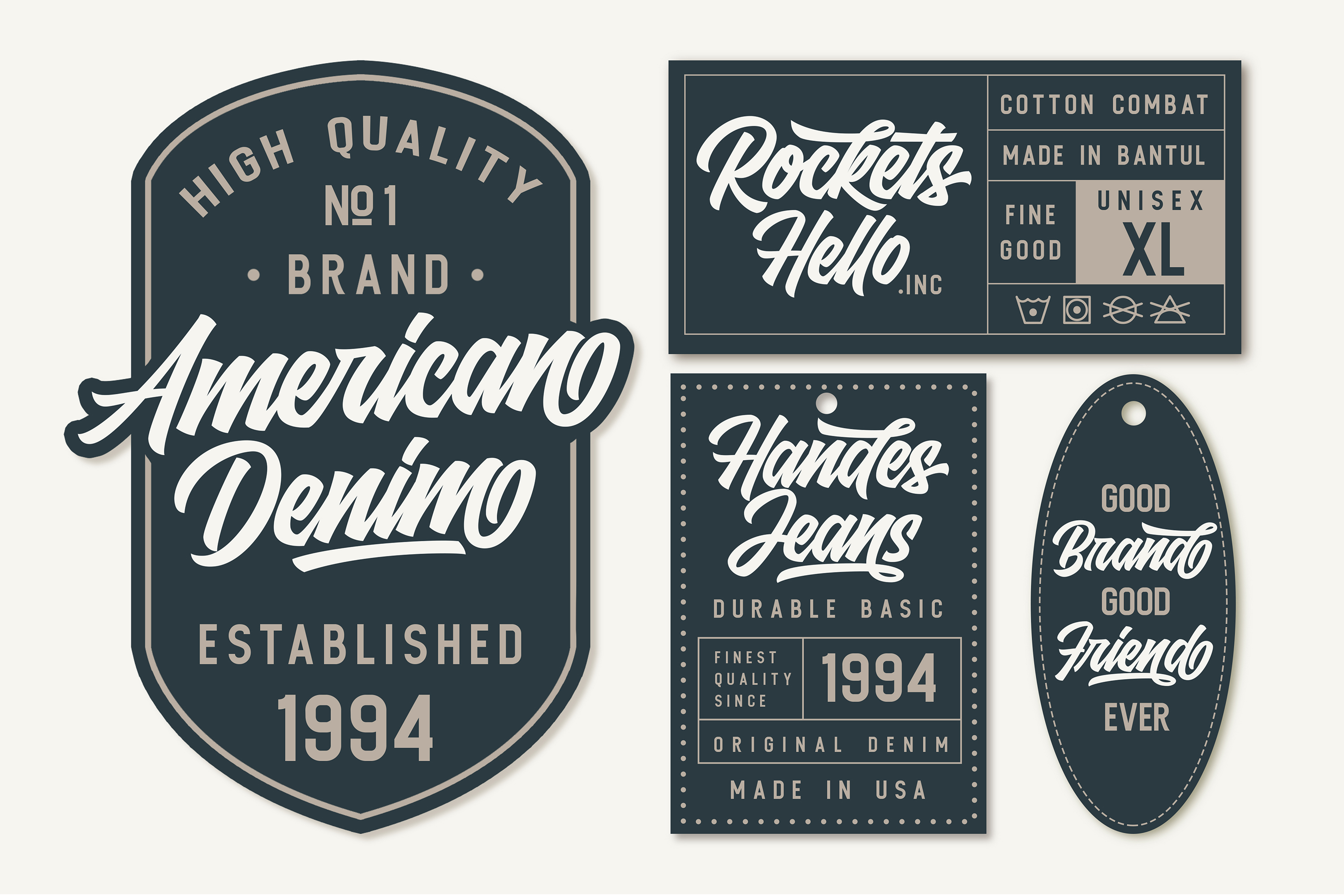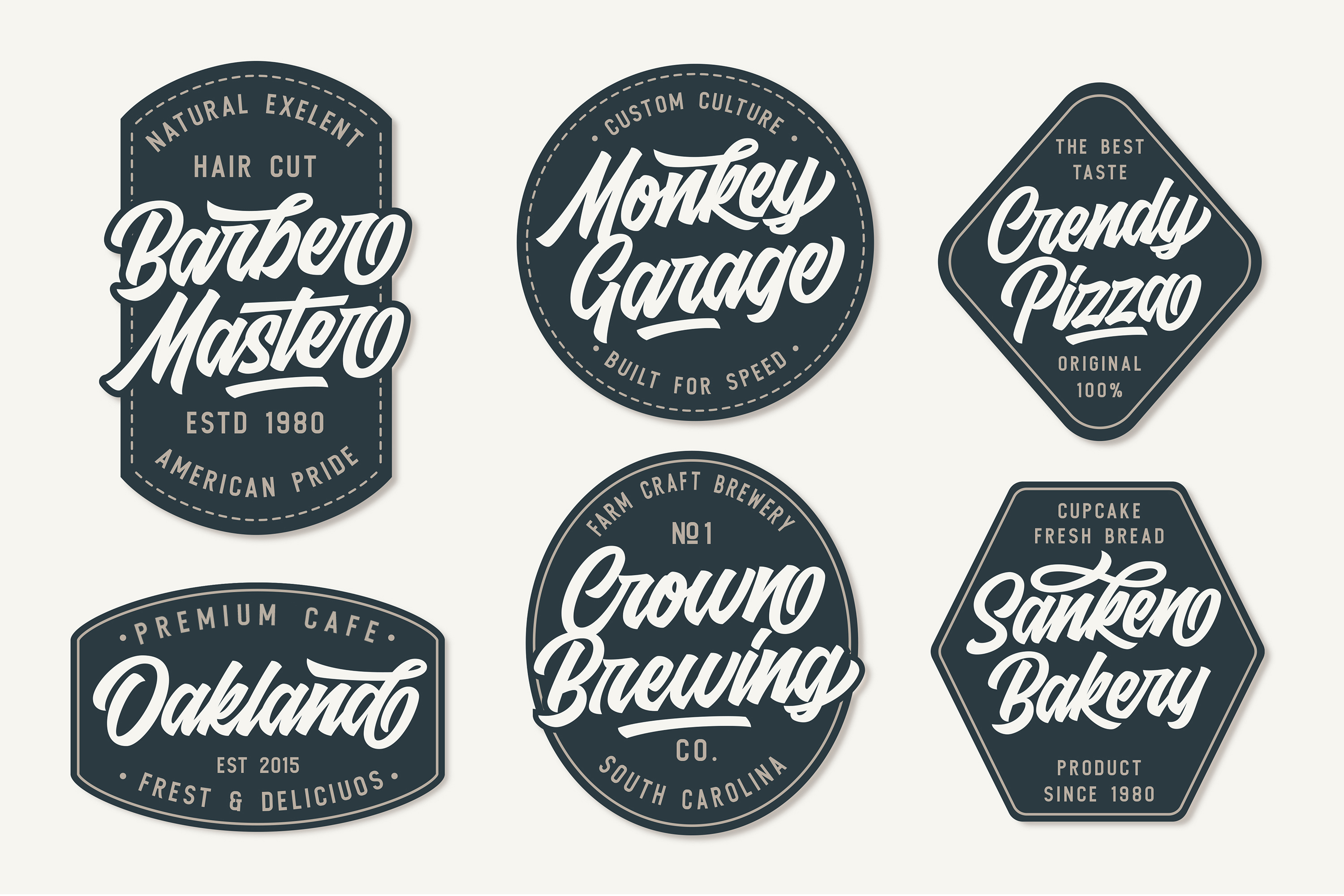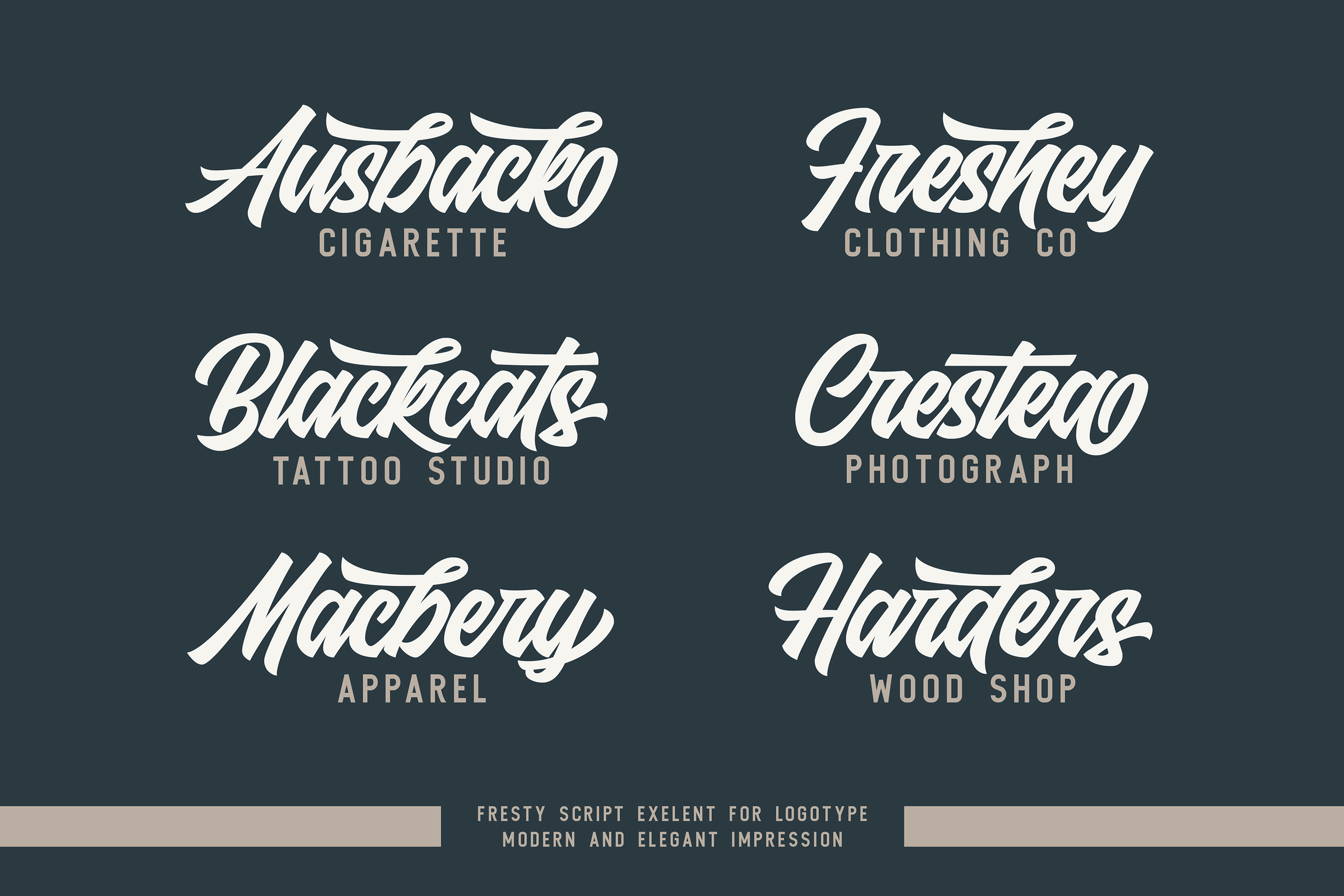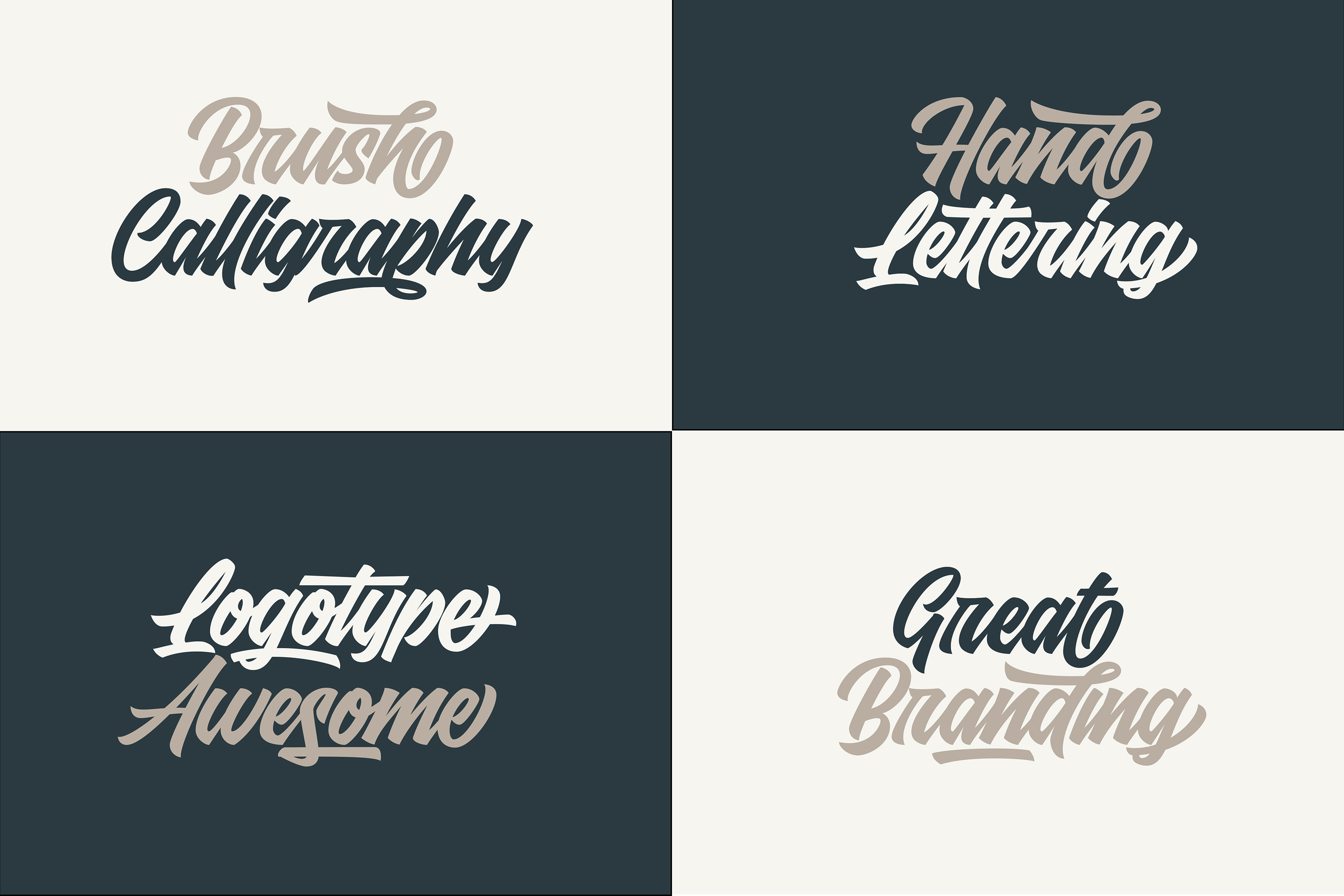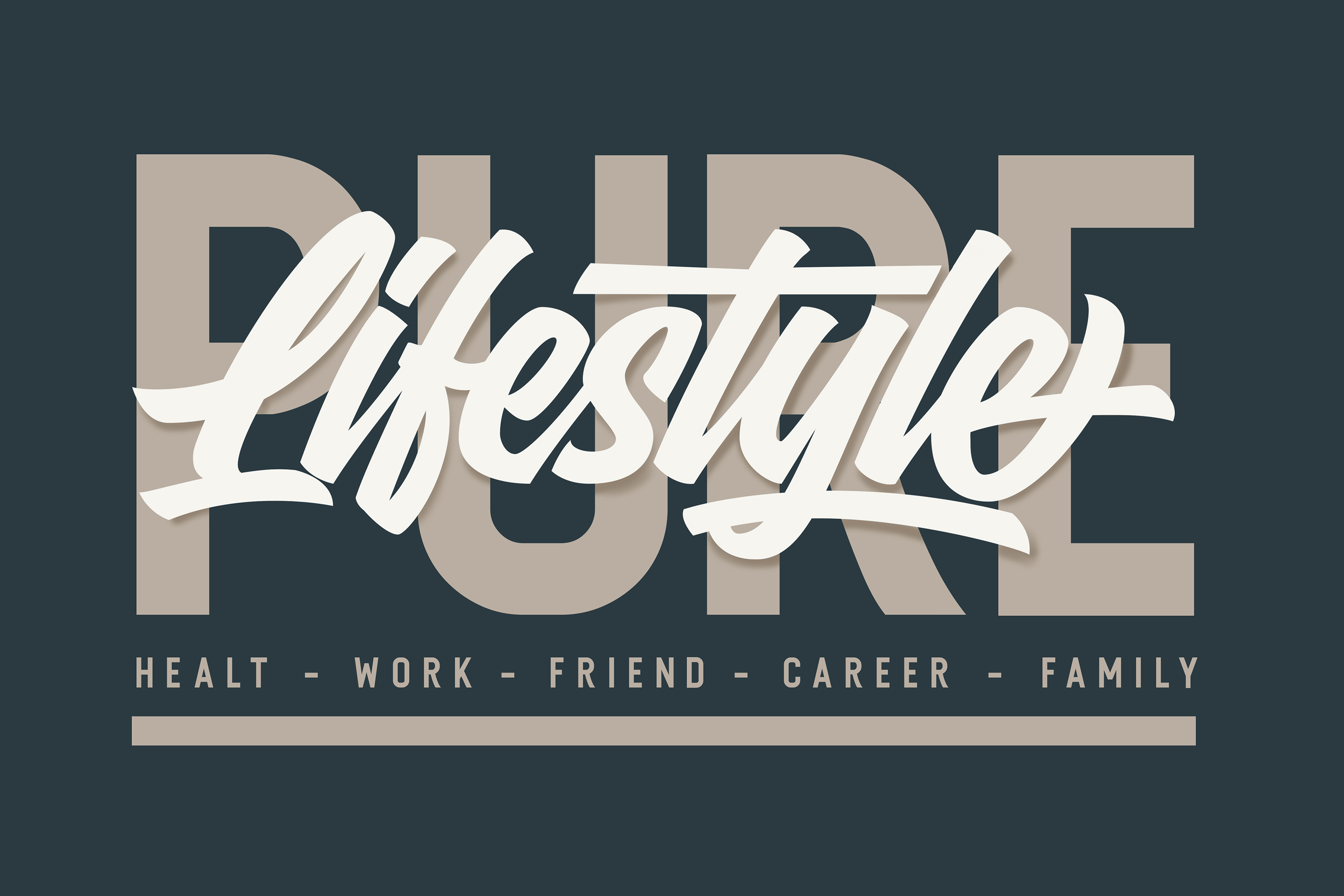
Introduction to Fresty Font
As a designer, have you ever stumbled upon that perfect font that elevates your entire creative project? For me, it was the moment I laid eyes on the Fresty Font. Its modern, trendy, and elegant design left me breathless, and I knew I had to learn more about this stunning script font.
The Fresty Font is not just a design resource, but a game-changer for branding and logotype projects. Its high-quality design makes it an excellent choice for designers looking to create professional and eye-catching typographic projects. And the best part? It comes with a complementary sans serif font, Grillo Nimo, making it a one-stop-shop for all your design needs.
Key Features of Fresty Font
- Includes a comprehensive character set, covering a wide range of languages and characters.
- Perfect for designers, artists, and creatives working on a variety of projects, from branding and advertising to editorial and publishing.
Honest Review: Fresty Font
I recently had the chance to work with the Fresty Font for a creative project and I must say it was a pleasant experience. One of the things that stood out to me was the high quality of the font itself, it’s crisp and clean lines made it perfect for a design resource like this.
One of the things that I love about the Fresty Font is that it comes with a transparent background, this makes it super easy to use and style to your liking. The free download option is also a big plus, it’s always great to have access to high quality design resources without having to break the bank.
Here are a few things that I think work well with the Fresty Font:
- Transparent background for easy styling
- Crisp and clean lines
However, I did encounter a few limitations with the Fresty Font:
- Limited character set
- No support for bold or italic styles
- Some users may find the font too modern or trendy
Overall, I was impressed with the Fresty Font and would definitely recommend it to anyone looking for a high quality design resource. With a little bit of creativity, this font can be used to create some truly amazing designs. ✨
Fresty Font
Fresty Font is a free download design resource that offers a high-quality, versatile font perfect for various creative projects.
Tips for Getting the Most Out of Fresty Font
Use Fresty Font with a transparent background to create a modern, minimalist look. Experiment with different font sizes and styles to add visual interest to your design.
Fresty Font is perfect for various creative projects, including logos, brochures, social media graphics, and more. Its high-quality design makes it an ideal choice for both personal and professional use.